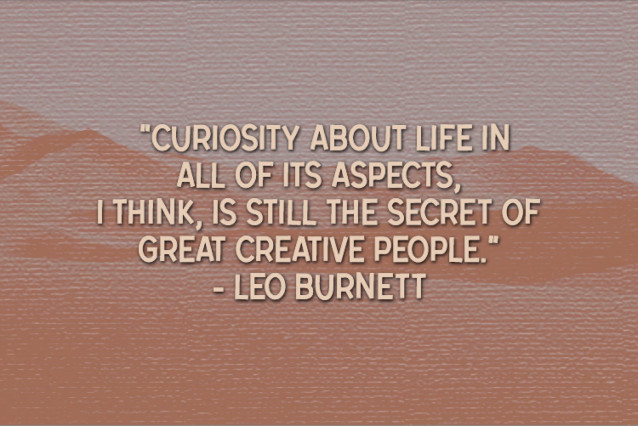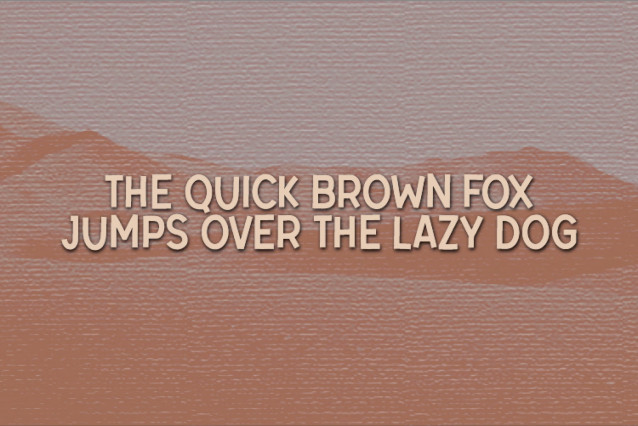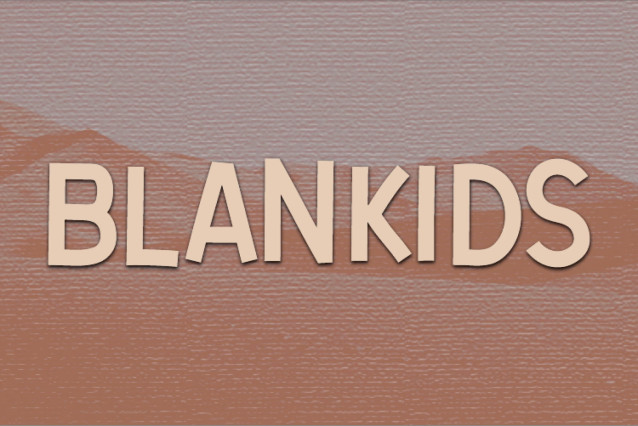
Blankids Font
Blankids is an interesting and unique display font perfect for quotes, notes, T-shirts, and many more. Fall in love with its incredibly versatile style, and use it to create spectacular designs!